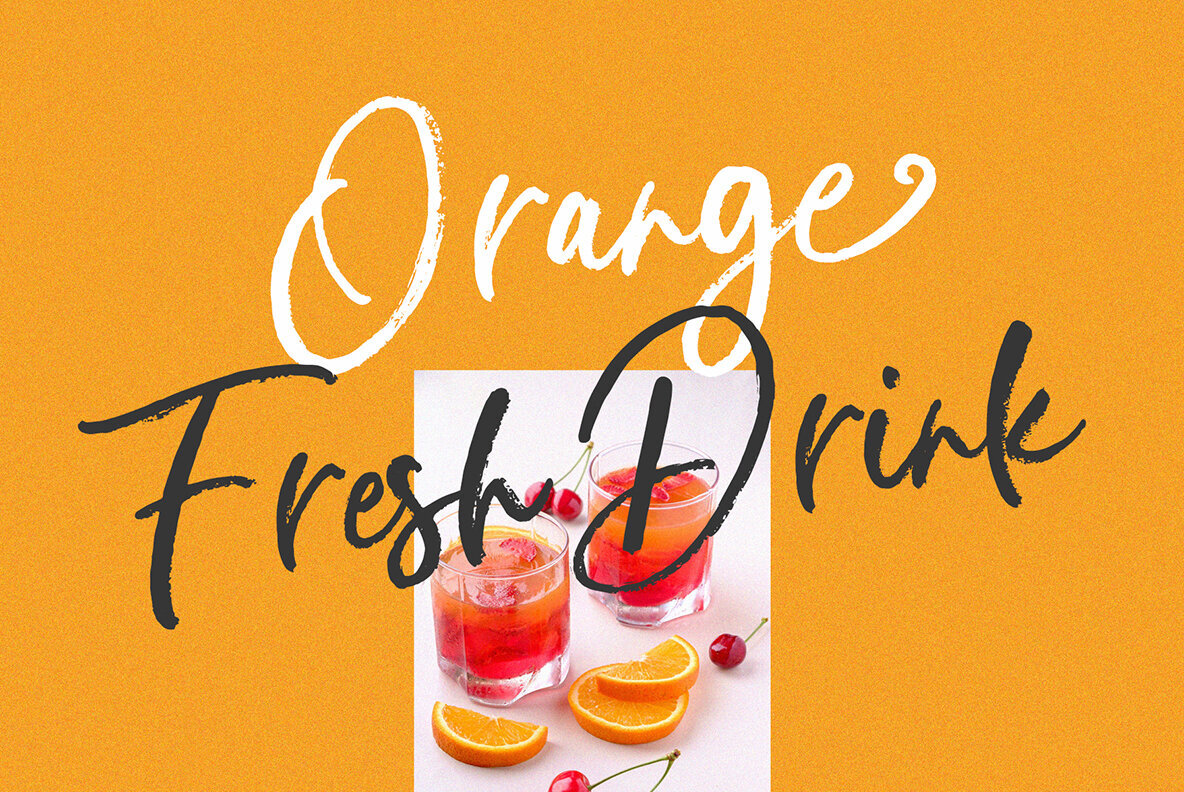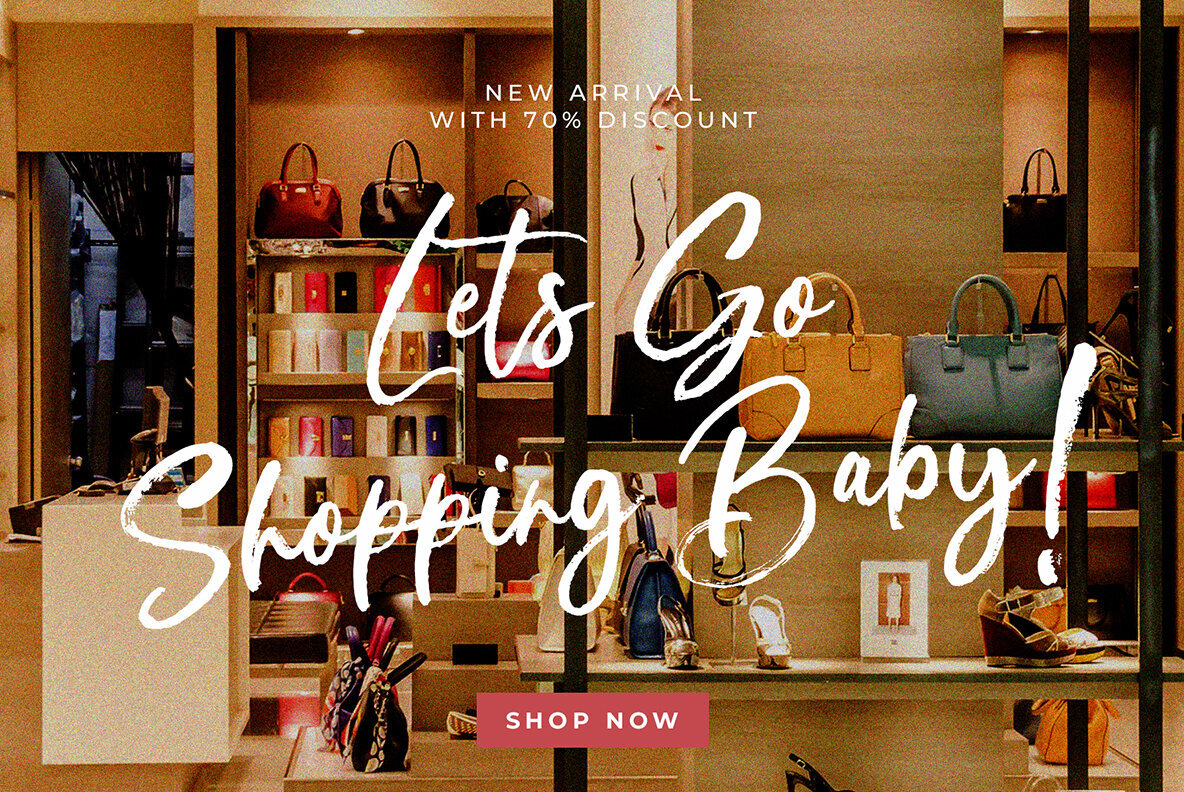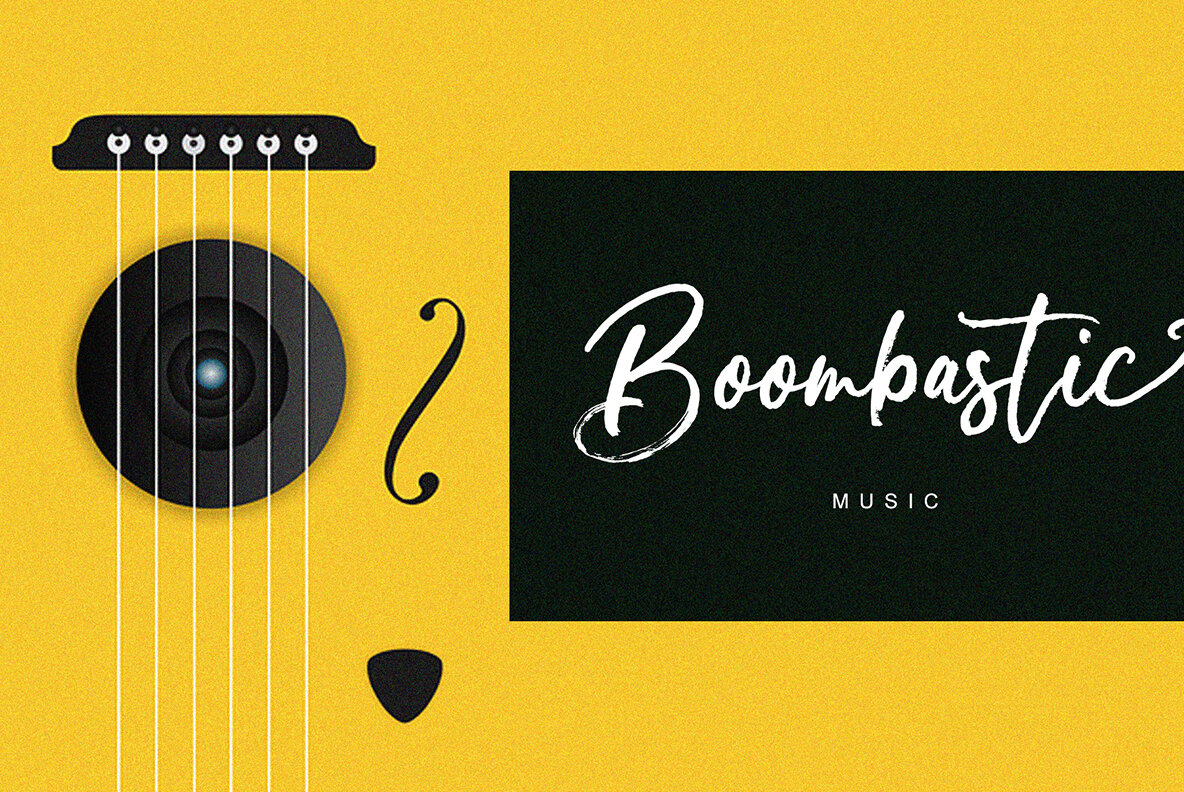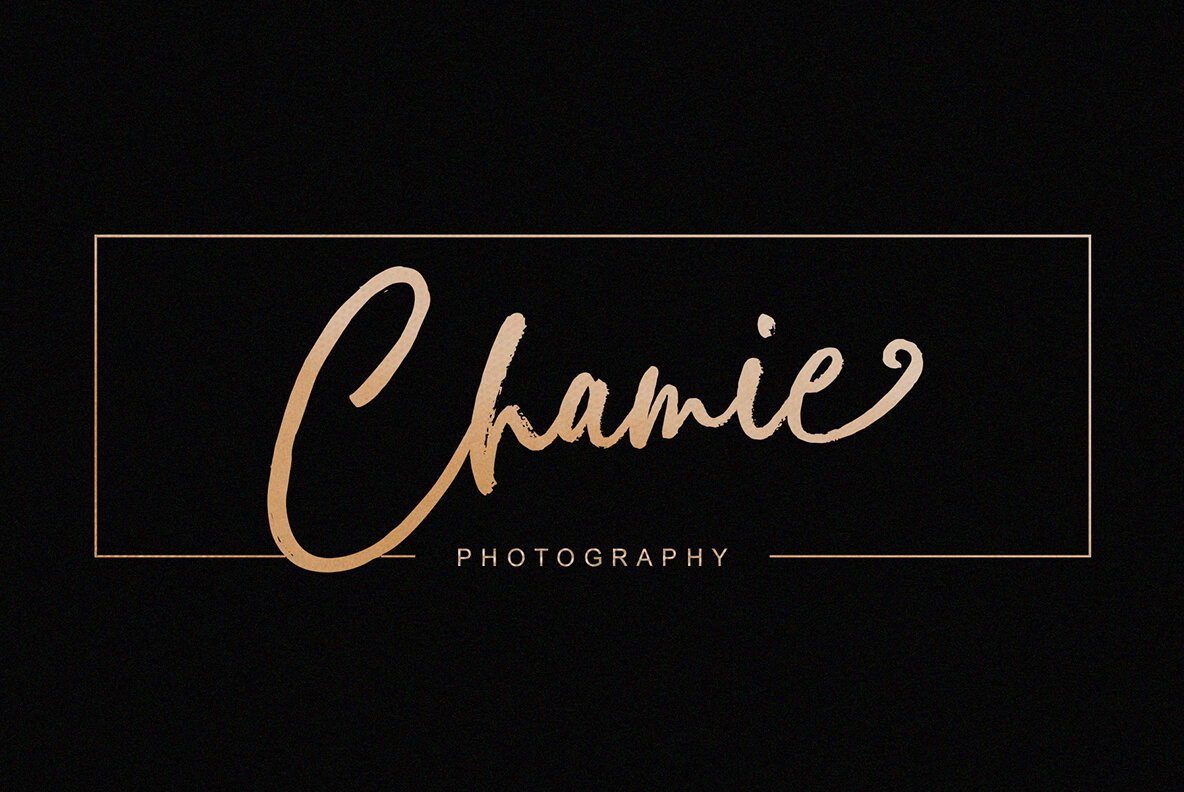
Blang Cod Font
Blang Cod Regular
Blang Cod Brush is a handwritten script font, based on free-flowing, friendly, and organic signature style expressions. hand painted with love. Sellyna Brush is available with alternative ligatures and characters in the Open Type Feature. Perfect for branding projects, logos, product packaging, posters, invitations, greeting cards, news, blogs, everything including personal charm.